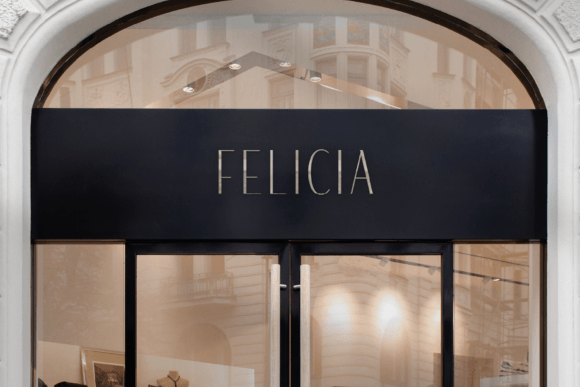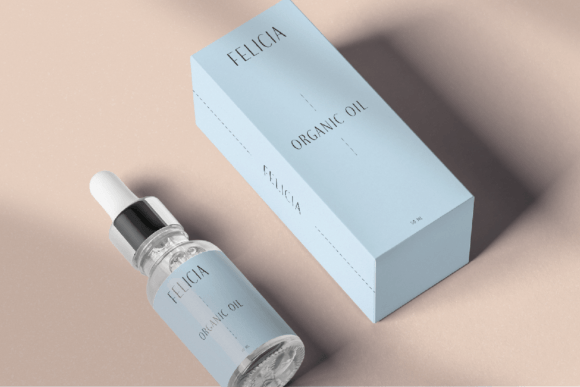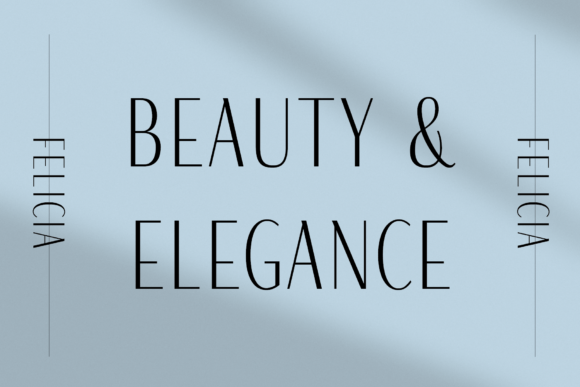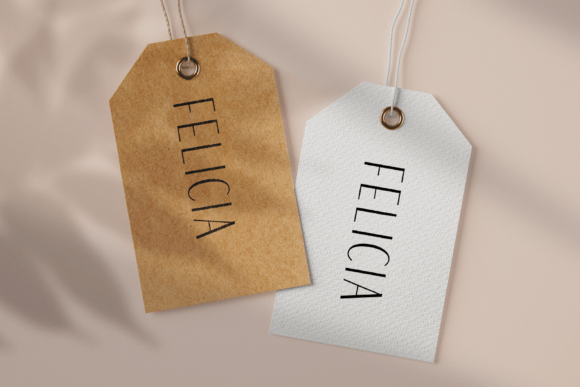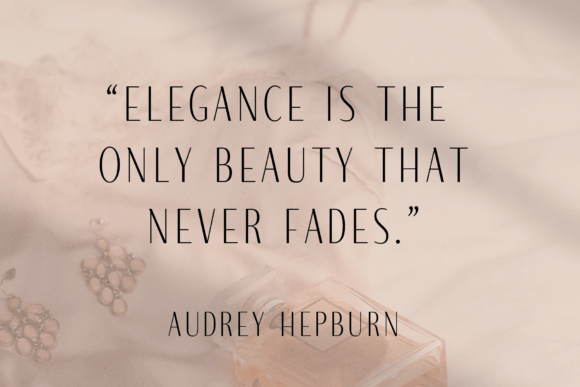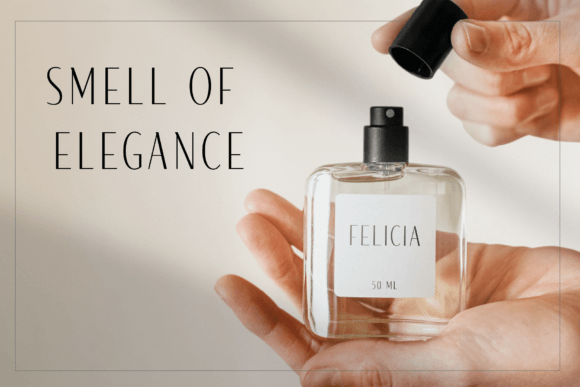
Creating a Lasting Impression with Style
Imagine you’re working on a high-end branding project, and you need a font that exudes luxury and sophistication. You want to make a statement, but you also want to keep things clean and elegant. That’s when you remember the perfect font to elevate your design: Felicia Font.
Felicia Font is a beauty-inspired display typeface designed to make a lasting impression. Its minimalist design is perfect for grabbing the viewer’s attention in a sophisticated way. Whether you’re working on a magazine, advertising campaign, or luxury brand, Felicia Font is the perfect choice to add a touch of class and elegance to your design. As a designer, you’ll appreciate the endless possibilities that Felicia Font offers, from branding to web design, and everything in between.
Felicia Font Key Features
- Font Family: Felicia Font is a sans-serif font family.
- Unique Characteristic: Felicia Font features a unique blend of modern and minimalist design elements, making it suitable for various design applications.
Felicia Font Review
I recently had the chance to work with the Felicia Font, and I must say it’s an interesting combination of elegant and playful features. Here’s what I think:
- ✨ Unique character: Felicia Font has a distinct personality that sets it apart from more generic fonts. Its quirky, handwritten feel can add a touch of whimsy to your designs.
- ✨ High legibility: Despite its playful nature, Felicia Font is still easy to read, making it suitable for a wide range of applications.
- ✨ Good for body text: I found Felicia Font to be a solid choice for body text, especially when you want to add some personality to your content.
- ⚠️ Limited font sizes: While Felicia Font looks great at larger sizes, it can become a bit too bold and overwhelming at smaller sizes. Be mindful of your font sizes when using this font.
- ⚠️ Not ideal for headings: While Felicia Font is great for body text, it’s not the best choice for headings, as it can be difficult to read in smaller sizes.
Overall, I think Felicia Font is a great choice for designers who want to add some personality to their designs without sacrificing readability. Just be aware of its limitations and use it wisely.
For optimal results, use Felicia Font for headings and titles to create a visually appealing design.
Use Felicia Font to create a cohesive look in your designs, pairing it with other fonts to create a harmonious typography.
Use Felicia Font to create a professional and polished look in your presentations and documents.
Felicia Font is perfect for:
- Magazine and newspaper headlines
Remember to experiment with different font sizes and styles to find the perfect combination for your design.
For the best results, use Felicia Font in combination with other fonts to create a harmonious typography.
Experiment with different font sizes and styles to add depth and visual interest to your designs.